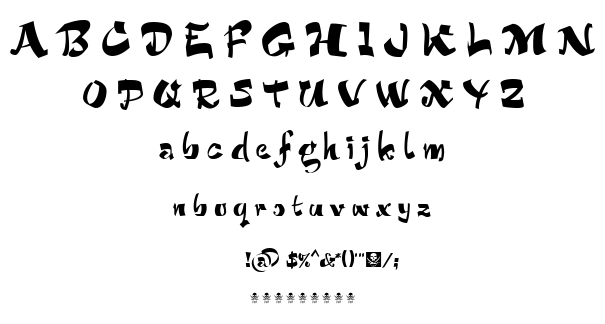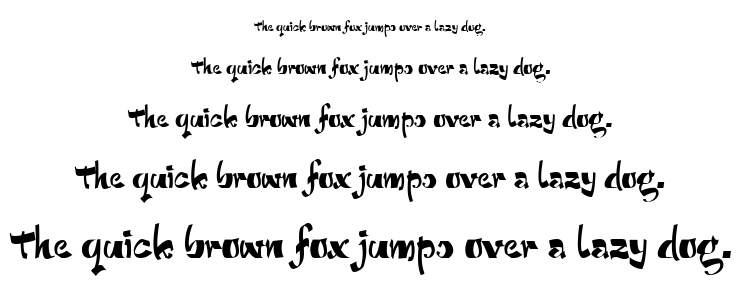
Bucanera is a calligraphic typeface with pirate inspiration and ornaments, is the result of the frustration that caused the Russian hackers.
Use following keys to see the ornaments, try other combinations with contextual swashes in your favorite text editor (Indesign, QuarkXpress, Photoshop, Illustrator…):
[ { -Initial ornaments-
] } -Final ornaments-
¬ | # -Terminal ornaments-
Example keys for name font: [Bucanera#
- 12 contextual decorative ornaments for the beginning and end of words or phrases, alternative letters, Swashes and other Open Type features.